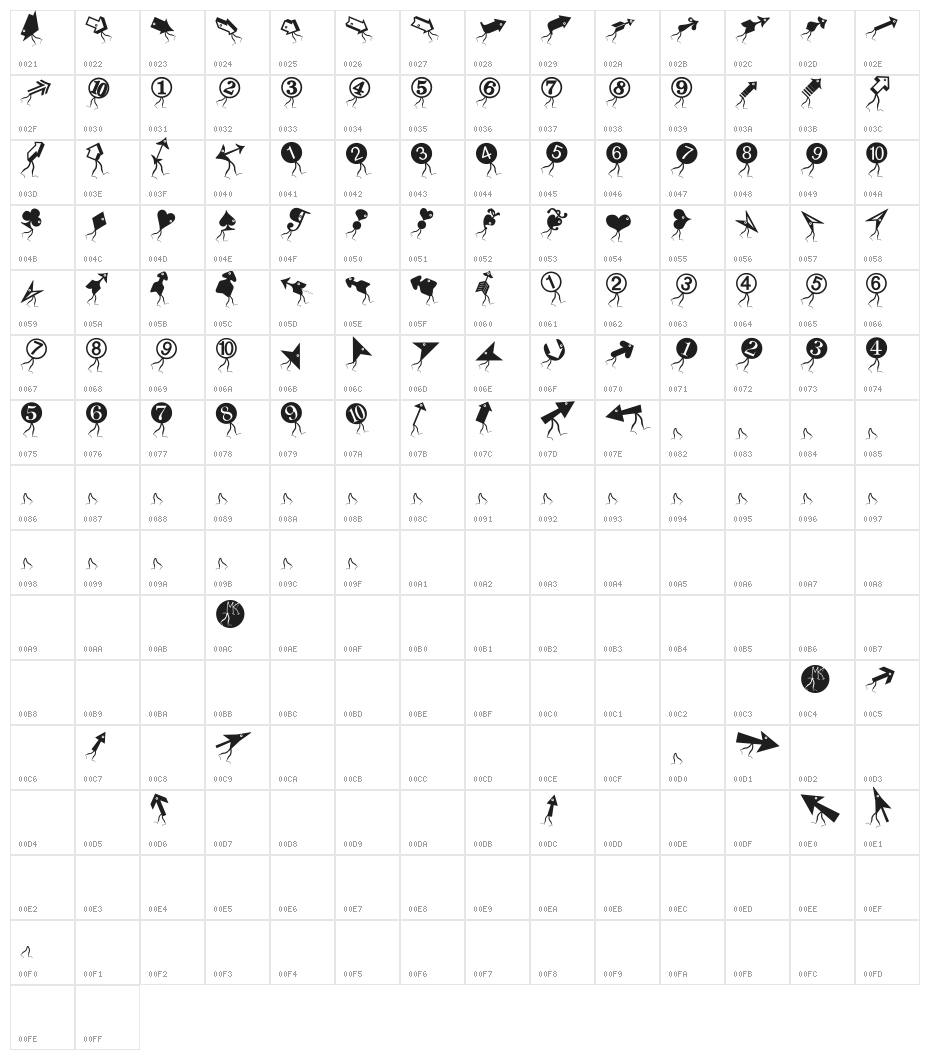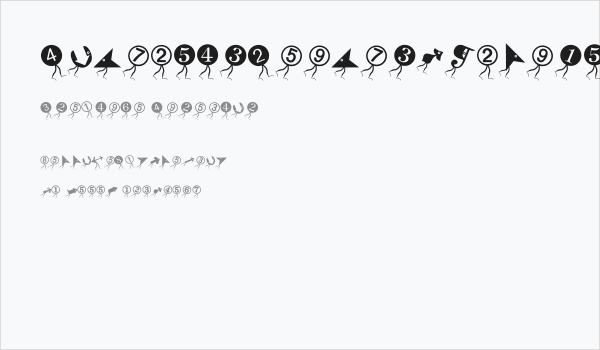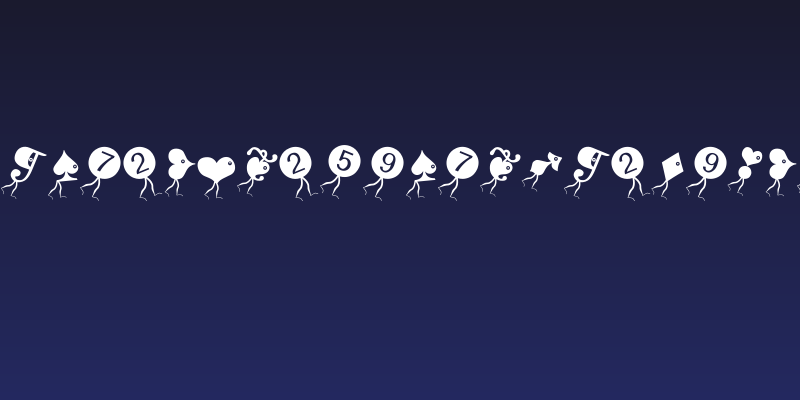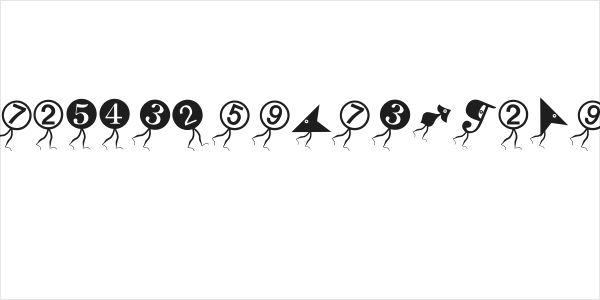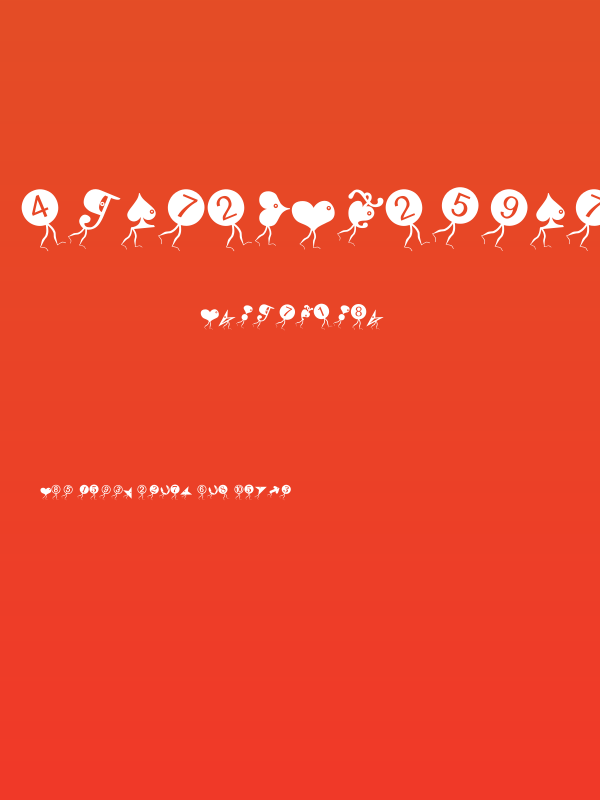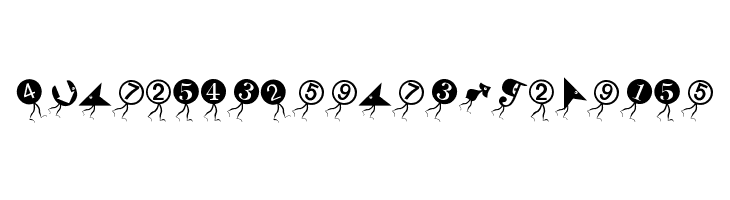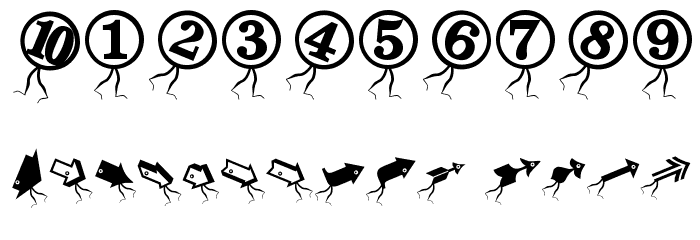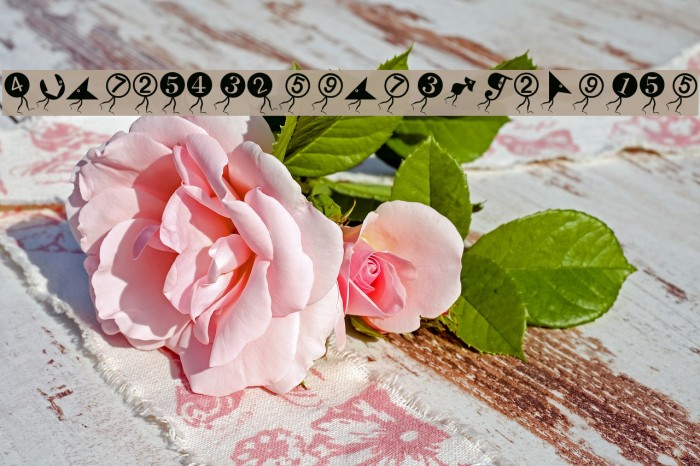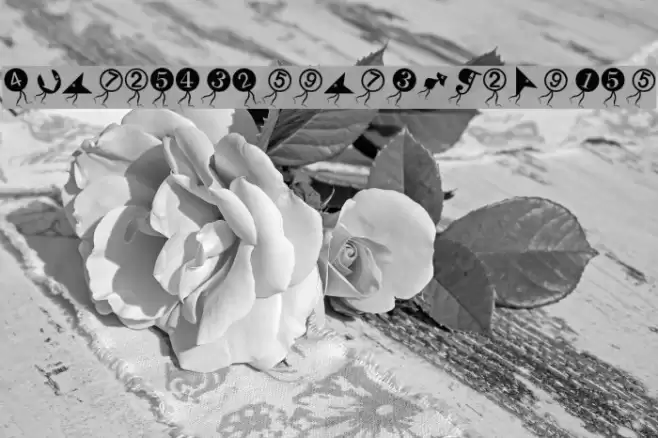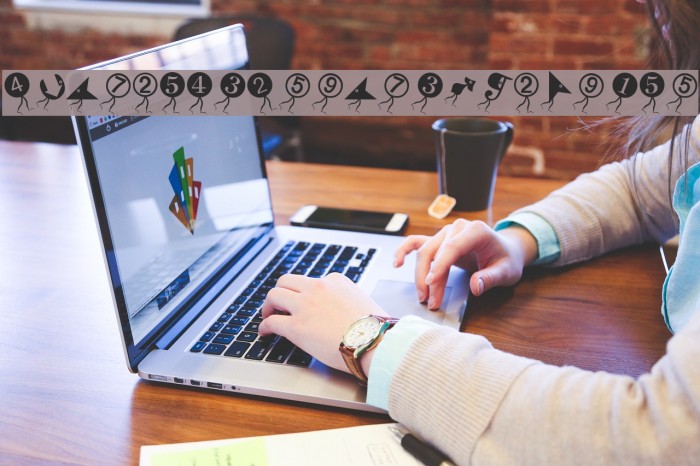
DongbutsBeings-Oblique Font
DongbutsBeings-Oblique Description
This is a playful and whimsical font featuring characters with legs, giving each number and symbol a lively, animated appearance. The design incorporates elements of humor and creativity, with each character appearing to be in motion. The numbers are enclosed in circles or other shapes, and some characters are designed to resemble animals or abstract forms. This font is highly decorative and unconventional, making it stand out with its unique personality and charm.
| Use Case | Logos, Posters, Children's books |
| Proposed Projects | Ideal for children's books, playful branding, creative posters, and any project requiring a fun and lively typeface. |